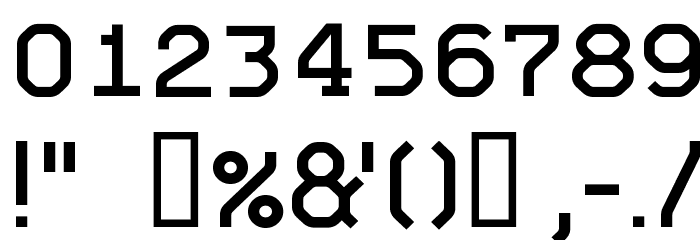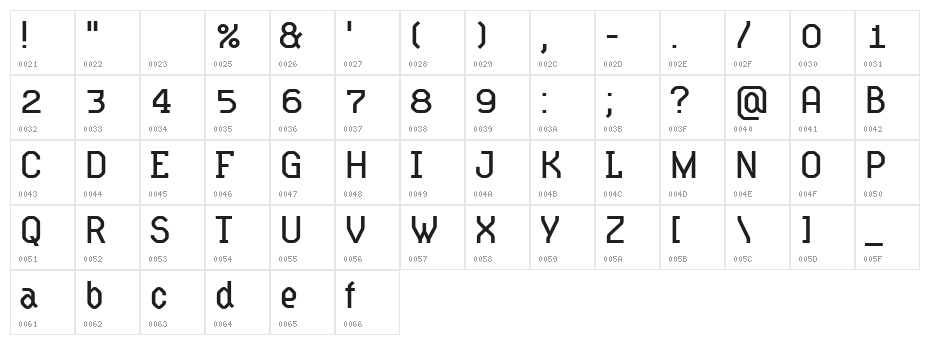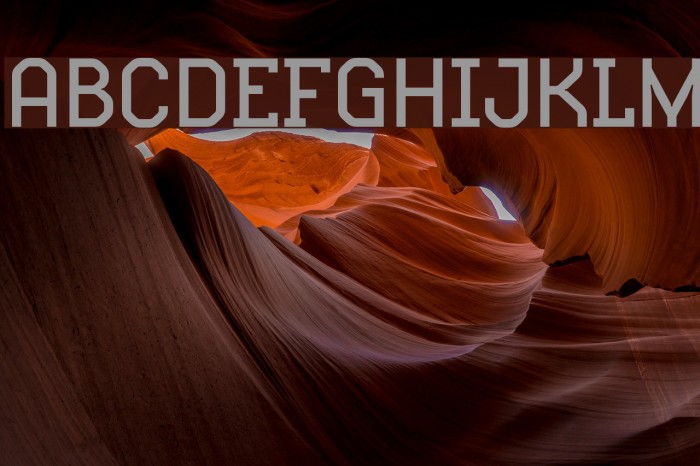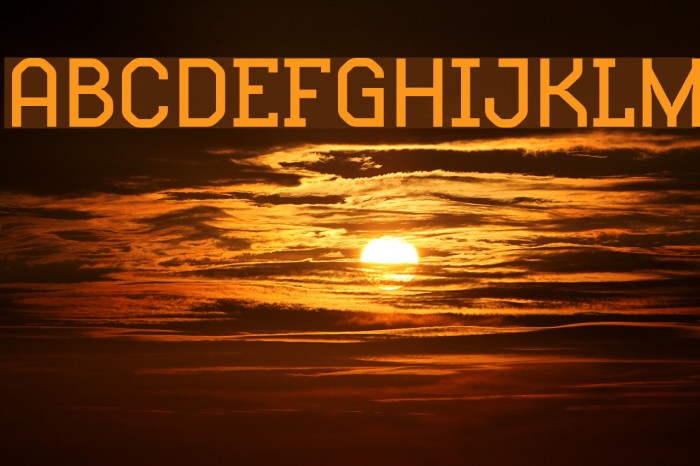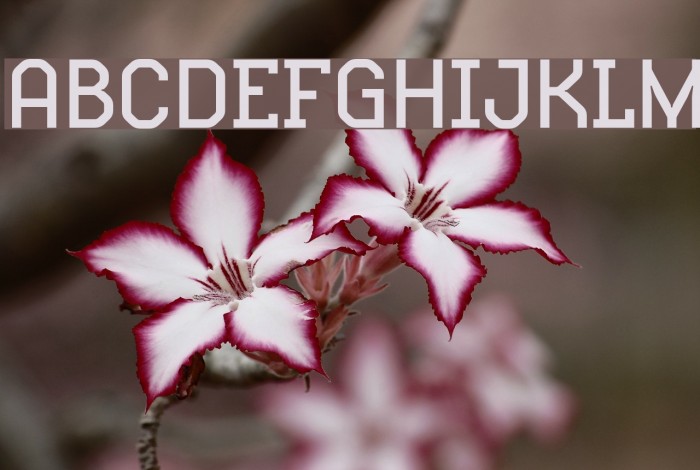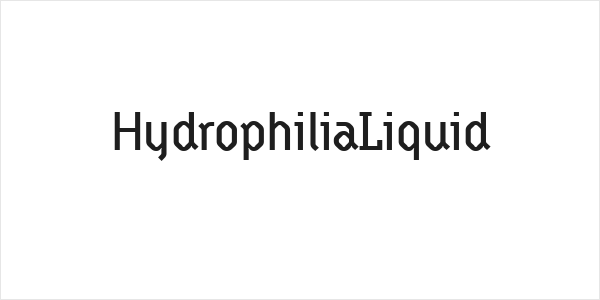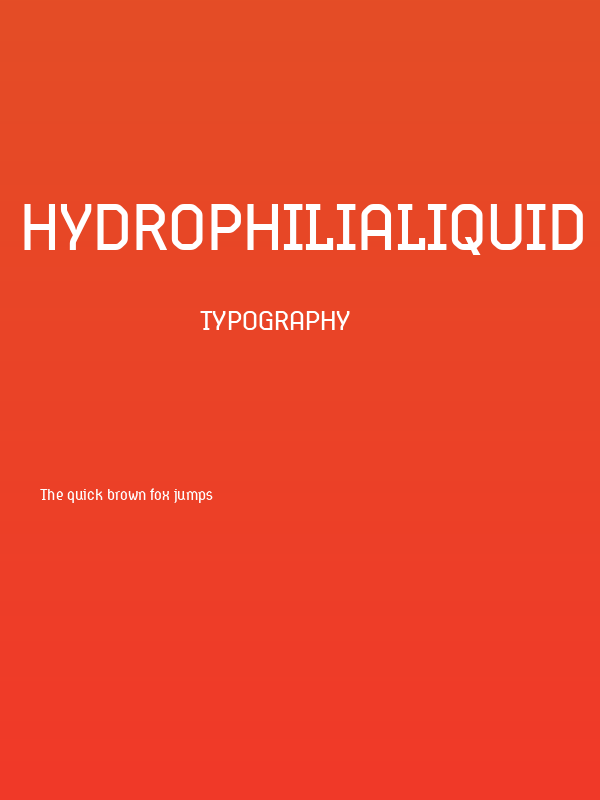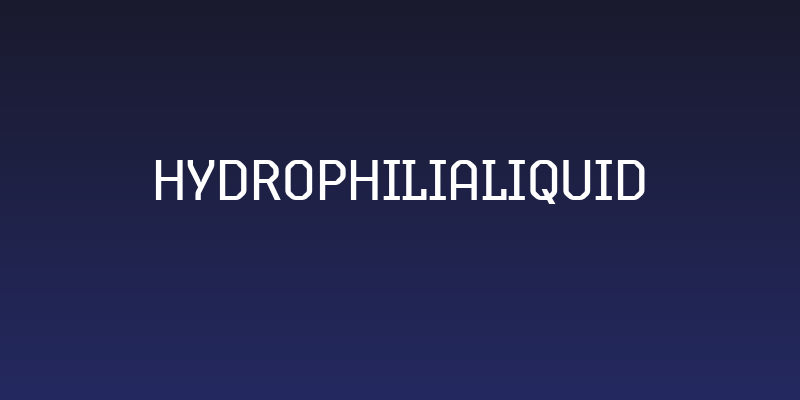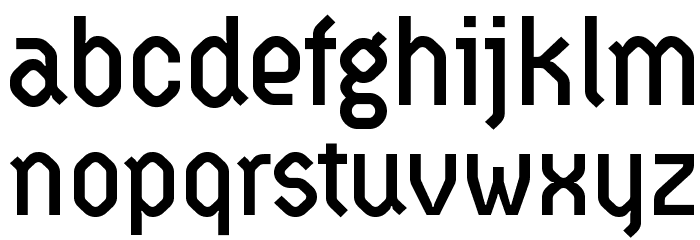
HydrophiliaLiquid Font
HydrophiliaLiquid Description
This font features a geometric and structured design, characterized by its bold and angular letterforms. The uppercase and lowercase characters maintain a consistent height, creating a uniform appearance. The numerals and special characters are designed with the same geometric precision, ensuring a cohesive look across all text. The font's clean lines and sharp edges give it a modern and futuristic feel, making it suitable for a variety of digital and print applications. Its distinct style is both eye-catching and legible, making it ideal for headlines and branding projects.
| Proposed Projects | Ideal for technology branding, modern advertising, digital interfaces, and futuristic design projects. |